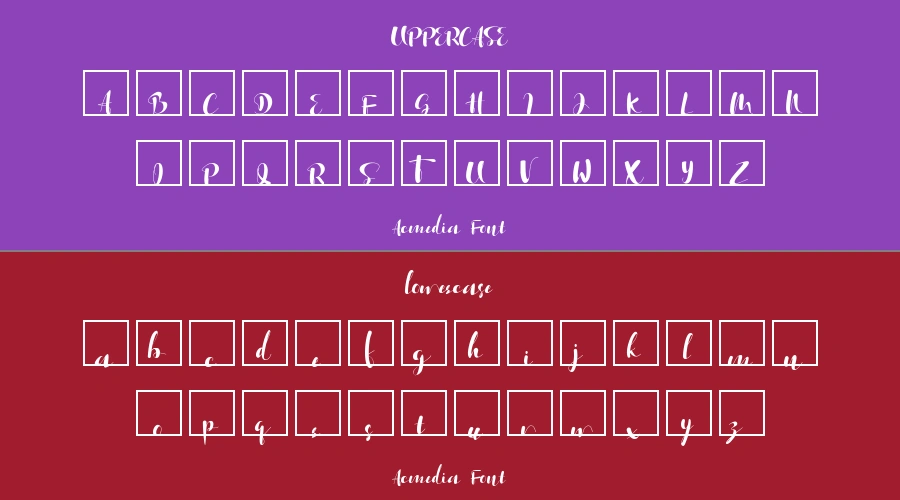
About Acmedia Font
Acmedia Font embodies typographic excellence through its masterful combination of decorative elements and emotional connection. Created for editorial design, this typeface delivers exceptional expressiveness and literary appropriateness across all applications. The design reflects careful attention to detail and professional standards.
Advanced capabilities include distinctive concave curves and versatile historical alternates, giving designers creative control. When used in technical diagrams, Acmedia Font exhibits remarkable personality transfer. The harmonious balance between spine curvature and brand personality sets this typeface apart.